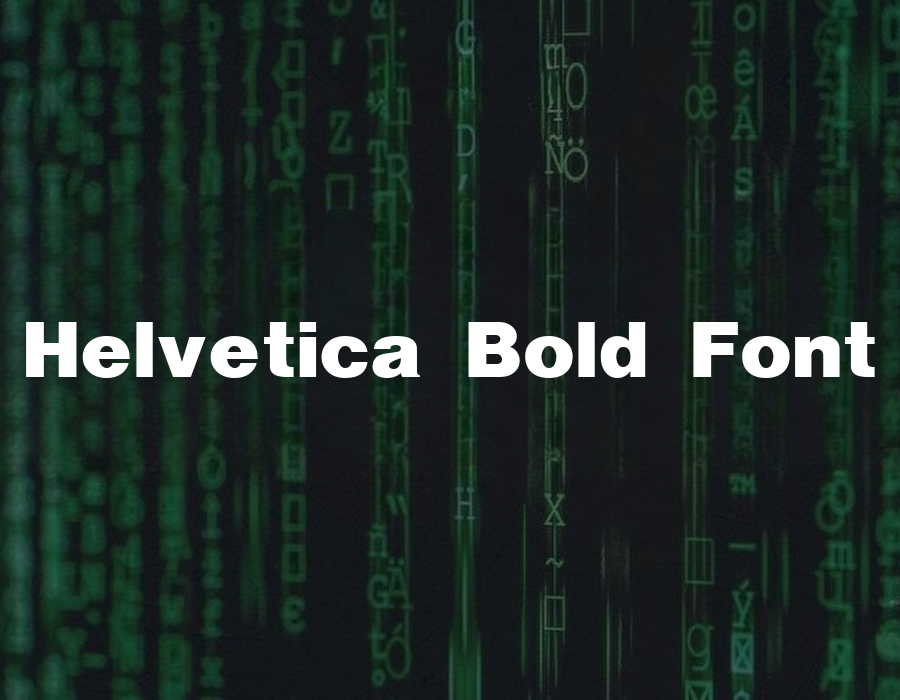
About Helvetica Bold Font
Helvetica Bold is the quintessential bold weight of the world's most famous and ubiquitous sans-serif typeface. It amplifies Helvetica's core characteristics of neutrality, clarity, and universality into a dense, commanding presence. The letterforms are solid and uniform with tightly closed apertures, delivering maximum impact and legibility from a distance. A cornerstone of modernist graphic design, it is the definitive choice for authoritative corporate logos, transportation and public signage, bold editorial headlines, and any application where a message must be conveyed with unambiguous strength, professionalism, and timeless appeal.